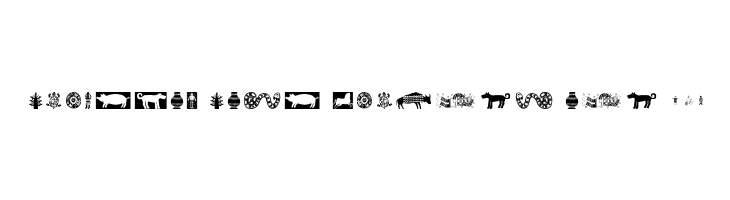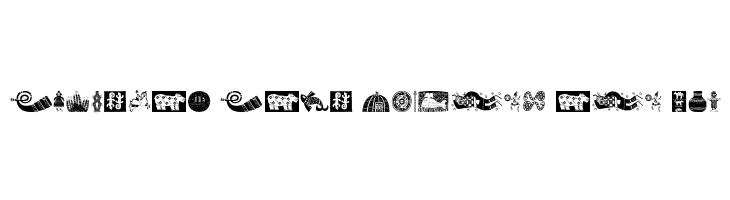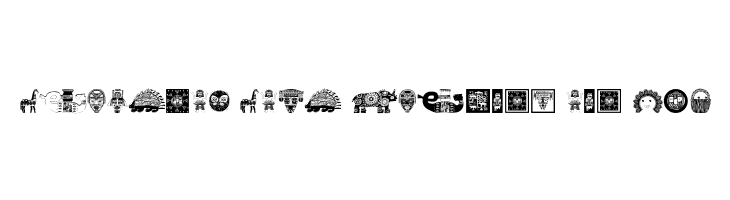
• AfricaArt
A collection of artistic symbols inspired by African art, featuring intricate designs and cultural motifs.
• AfricaArtTwo
Decorative dingbat font with African art and cultural motifs.
• Africain
A decorative font with African-inspired symbols and illustrations.
• After Night
A bold, flowing script font with elegant curves and medium contrast.
• Afterschool Festival
An ornate and decorative font with elegant swirls and flourishes.
• Aftershock
A bold, expressive script font with dynamic slanted characters.
• Ageitha
An elegant script font with high contrast and flowing curves.
• Ah Carbon!
A bold, distressed font with a grunge aesthetic and irregular, dynamic shapes.
• Ahoyaha
A bold, playful script font with smooth, flowing curves.
• Aikasiirtyma
A bold, graffiti-inspired font with dynamic, angular characters.
• Airlangga Personal Use Only
An elegant script font with flowing, calligraphic style.
• airwaves
A modern, rounded font with a playful and bold style.
• AisForAlligator
A decorative font with intricate, nature-inspired illustrations in each character.
• Ajieb
A playful and dynamic script font with fluid, connected letterforms.
• Aka-AcidGR-Around
A playful, handwritten font with dynamic, irregular strokes.
• Aka-AcidGR-Fifindrel
A fluid and elegant script font with a handwritten style.
• Aka-AcidGR-FifiTheCat
A lively, cursive handwritten font with fluid, connected strokes.
• Aka-AcidGR-Kairee
A bold, geometric font with a digital, pixelated style.
• Aka-AcidGRBuzzed
A bold, textured font with a playful, pixelated style.
• Akiba Punx
A bold, energetic font with sharp, angular strokes and a rebellious vibe.
• Akiba Punx Bold Italic